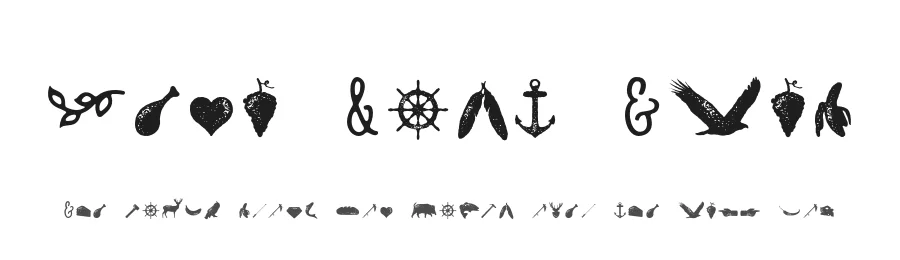
About Square One Jenna! Font
Square One Jenna! is a decorative font designed by Jenna Cary. It includes 75 glyphs, a regular weight, TTF (TrueType) format, and 89 languages. Square One Jenna! is free to download; check the license details on this page before commercial use. Decorative fonts like Square One Jenna! work best for logos, posters, packaging, and standout headlines.
Square One Jenna! Font is a decorative font that shines as a display or heading face. Pair it with a clean sans-serif or serif font for body text β the contrast creates a clear hierarchy while the two styles stay balanced and easy to read.
Square One Jenna! Font
by Jenna Cary